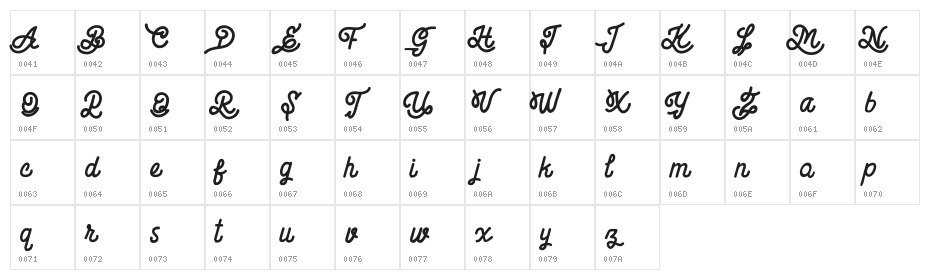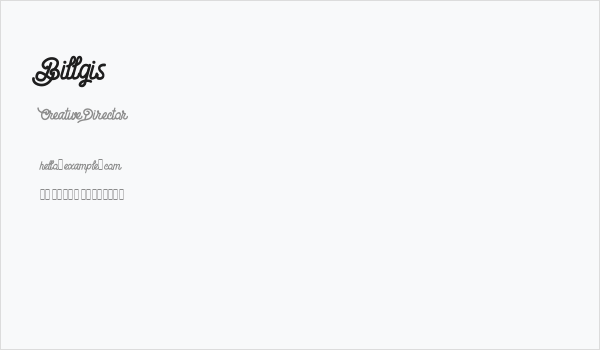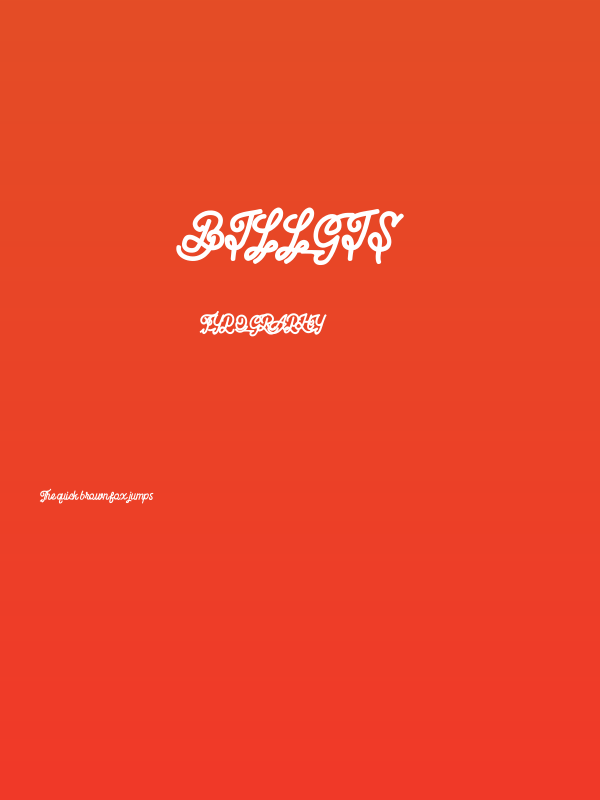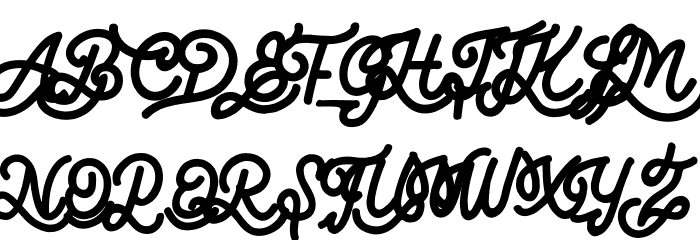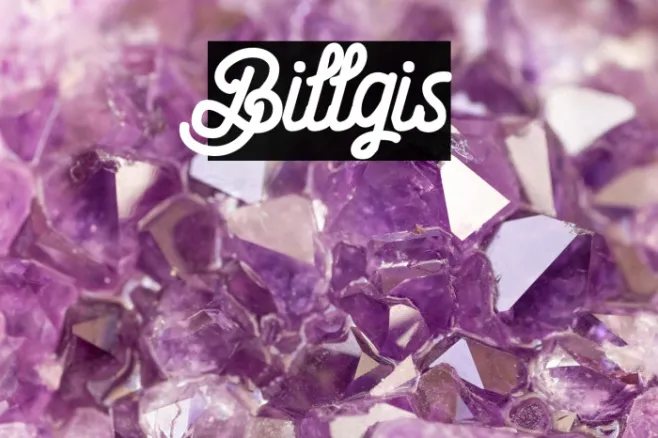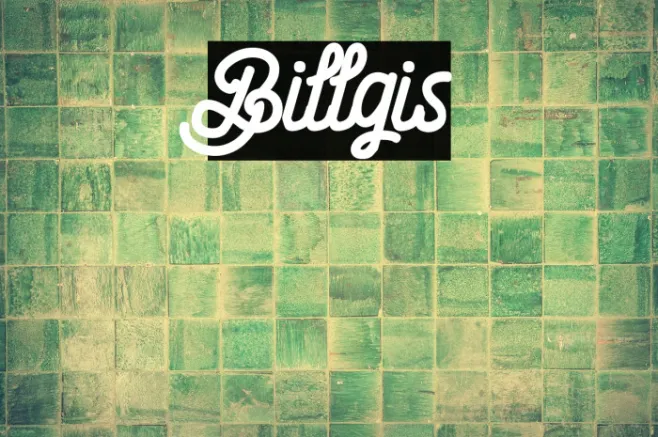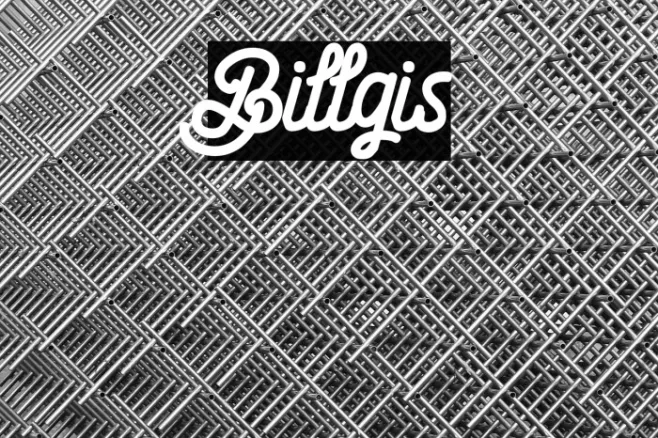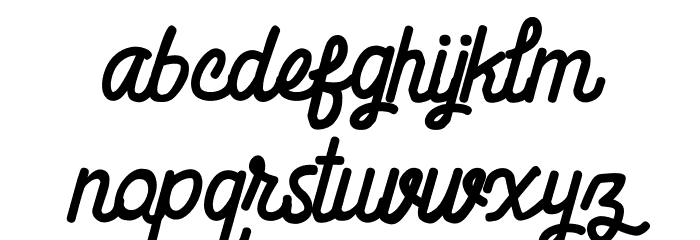
Billgis Font
Billgis Description
This font features a flowing, cursive script style with elegant loops and swashes. The letters are interconnected, creating a seamless and continuous look. The uppercase letters are bold and prominent, while the lowercase letters maintain a consistent flow, enhancing readability. The numbers and special characters are designed to match the overall aesthetic, with similar curves and flourishes. This font exudes a sense of sophistication and grace, making it suitable for projects that require a touch of elegance.
| Use Case | Logos, Invitations, Decorative headings |
| Proposed Projects | Ideal for wedding invitations, elegant branding, personal signatures, and decorative headings. |